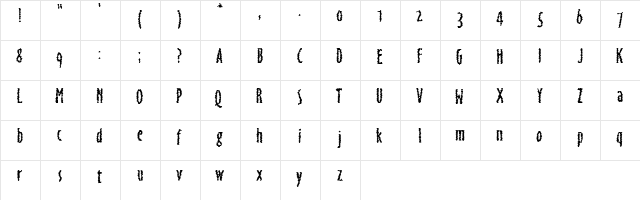
CHISSELED Regular
Design Context for CHISSELED Typeface
CHISSELED is a composed and adaptable typeface that performs quietly and consistently across a wide range of design contexts.